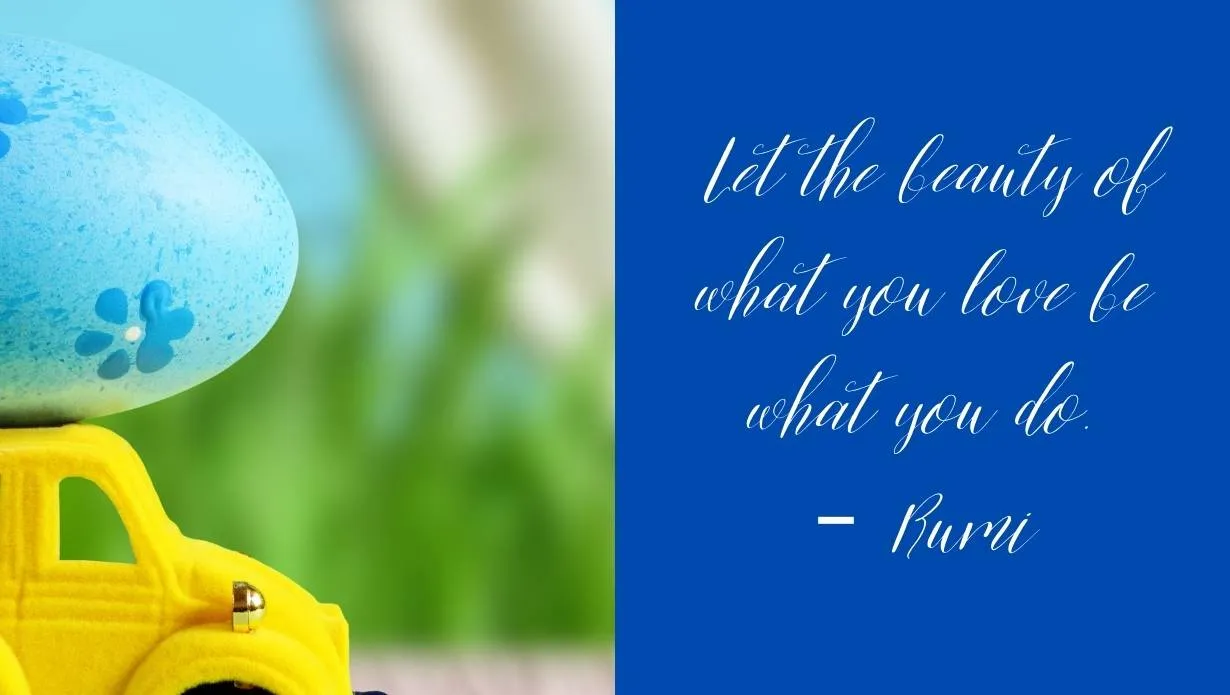
Alivia Script Font is a new, Script font that was designed by Shiro Studio. This stunning Font is a playful font that features unique letterforms and a casual style. It is perfect for adding a touch of personality to your designs. This typeface is best for other various amazing programs like Canva, Adobe Photoshop, and so on.
It is very famous due to its advanced OpenType features that include: Contextual Alternates, Discretionary Ligatures, Stylistic Alternates, Swashes, and more. Magnolia Sky Font is very closest to this font family.